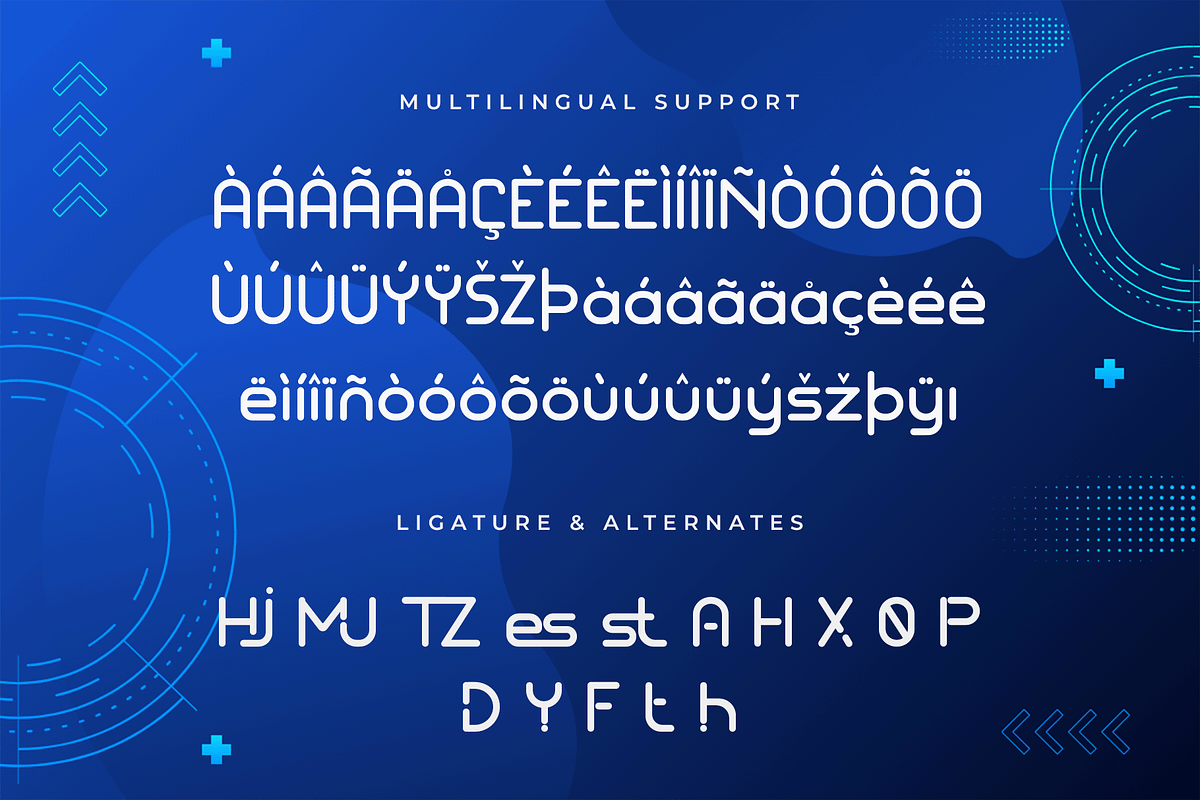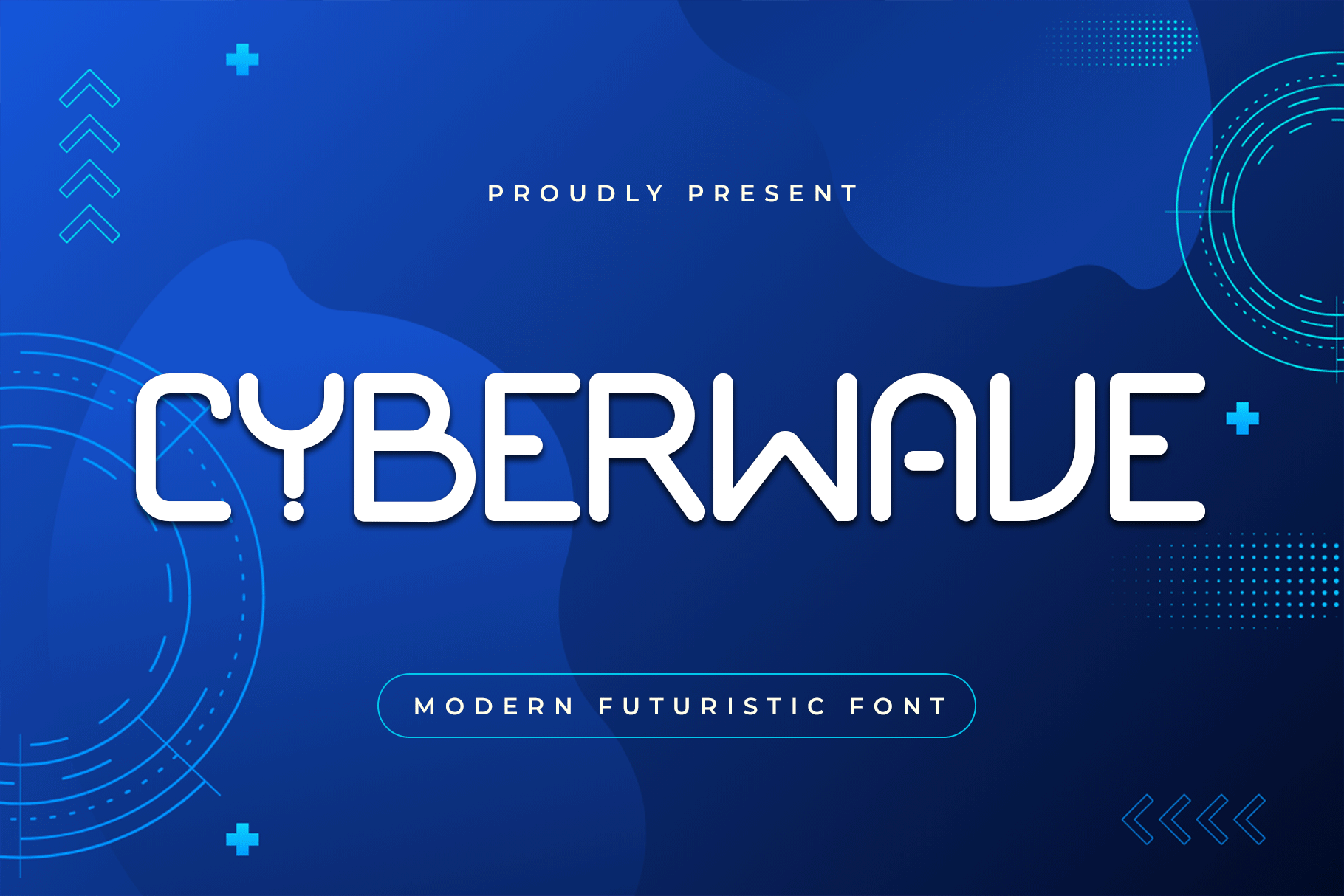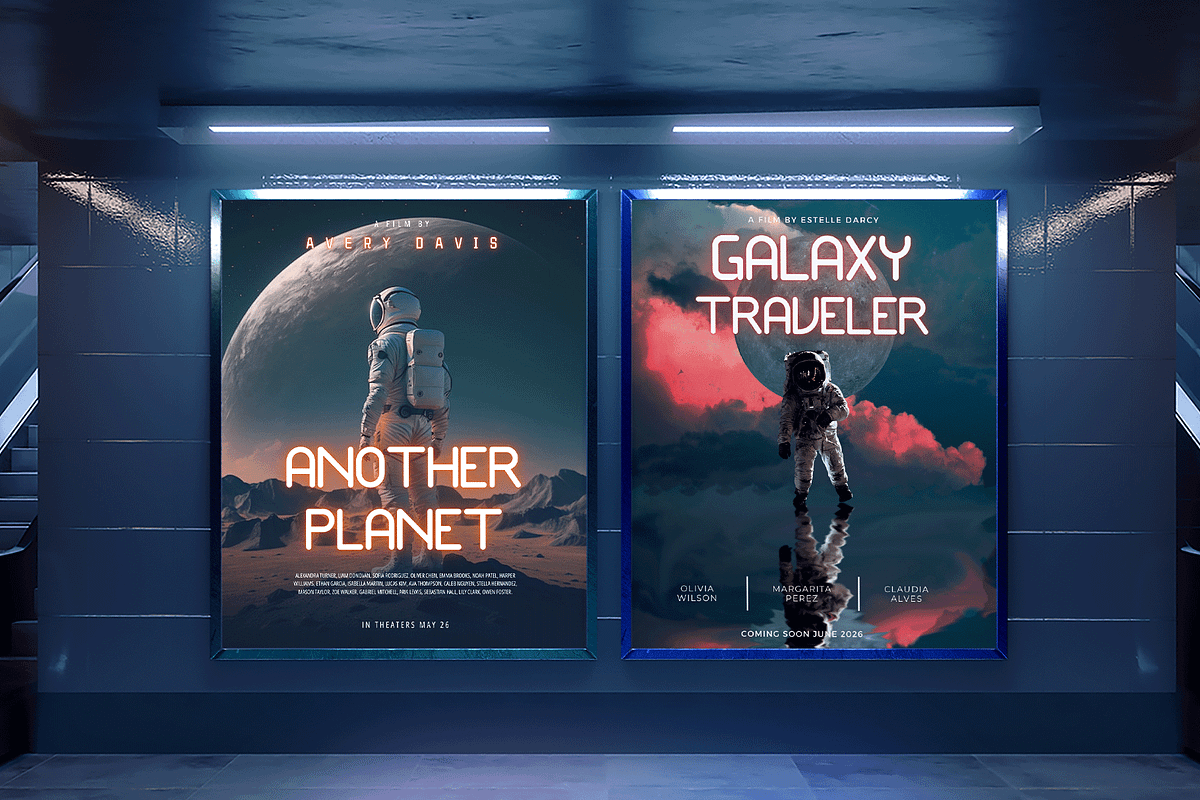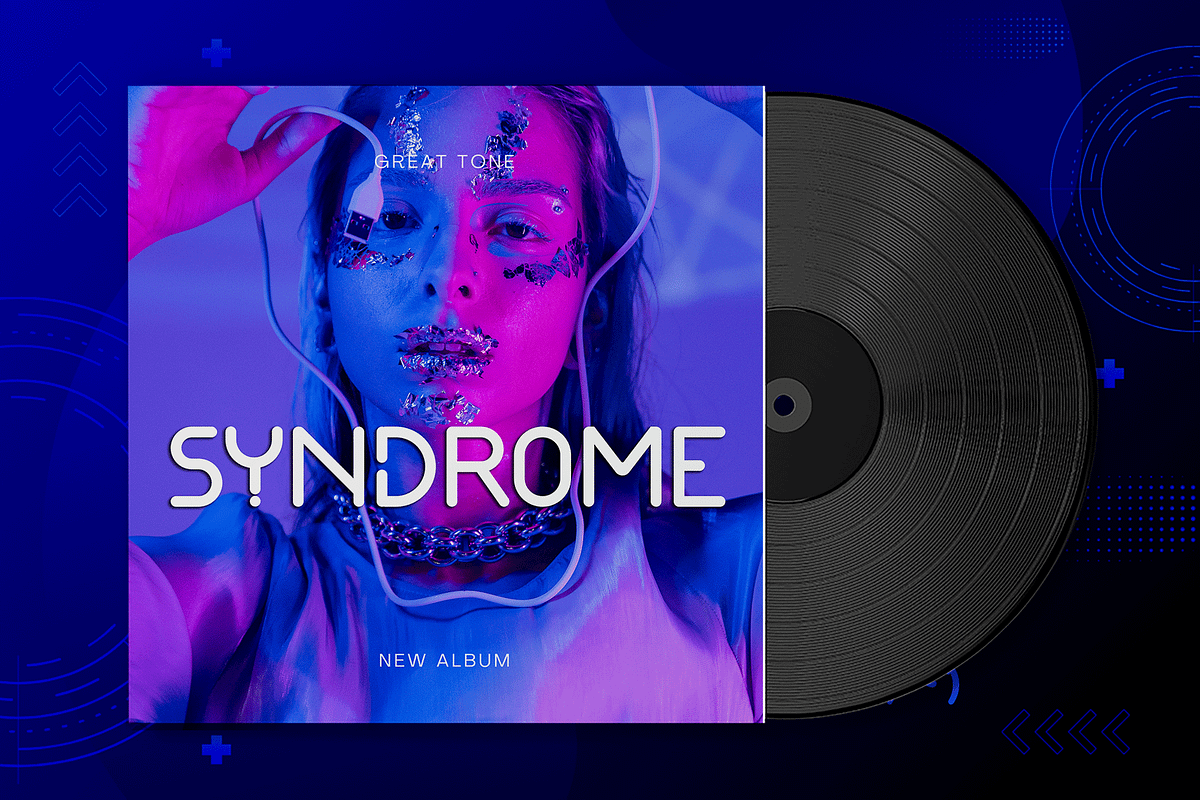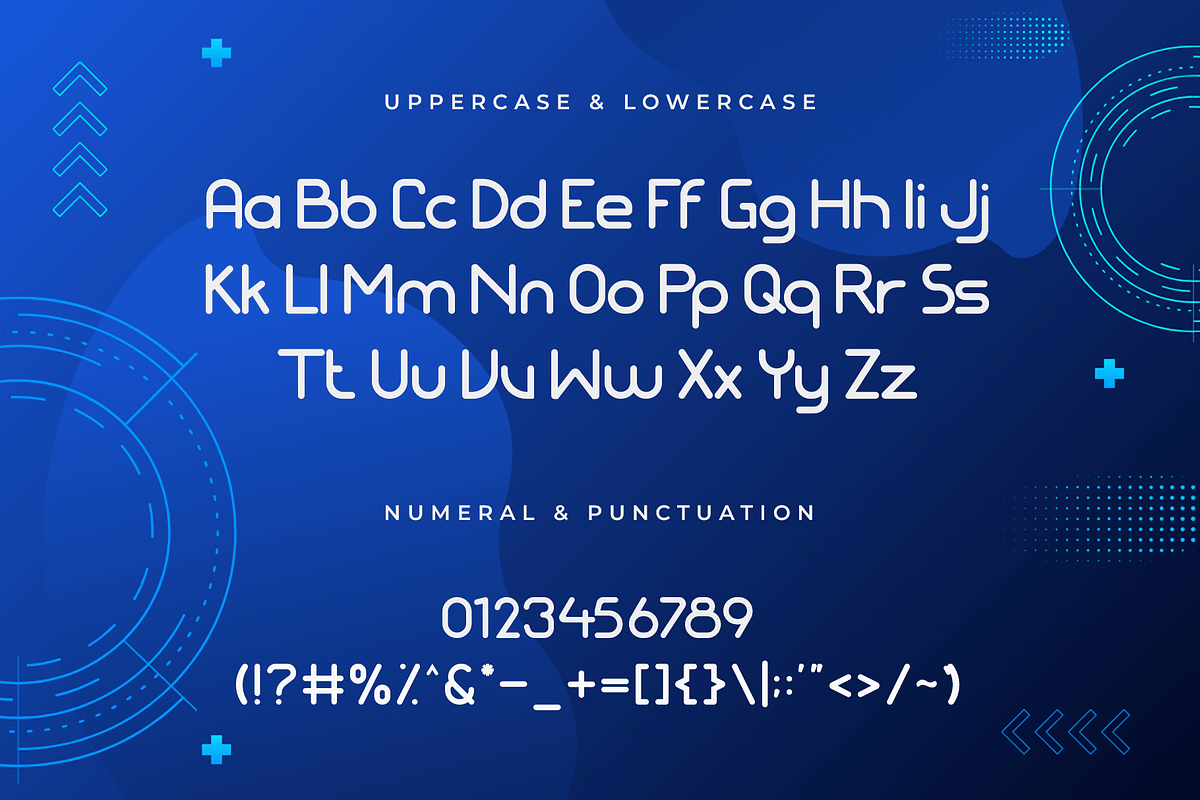
Cyberwave – A Modern Futuristic Font
Step into the future with Cyberwave, a modern futuristic font designed for cutting-edge designs and digital innovation. Featuring sleek lines, sharp edges, and a tech-inspired aesthetic, Cyberwave is the perfect choice for sci-fi themes, gaming, technology branding, cyberpunk visuals, and futuristic interfaces.
This typeface embodies the spirit of modernity and digital evolution, making it ideal for posters, logos, UI/UX designs, esports branding, and more. With its unique letterforms and strong geometric structure, Cyberwave adds a high-tech, electrifying touch to any project.
Equipped with uppercase and lowercase letters, numbers, punctuation, and multilingual support, Cyberwave is your ultimate font for pushing the boundaries of futuristic typography.